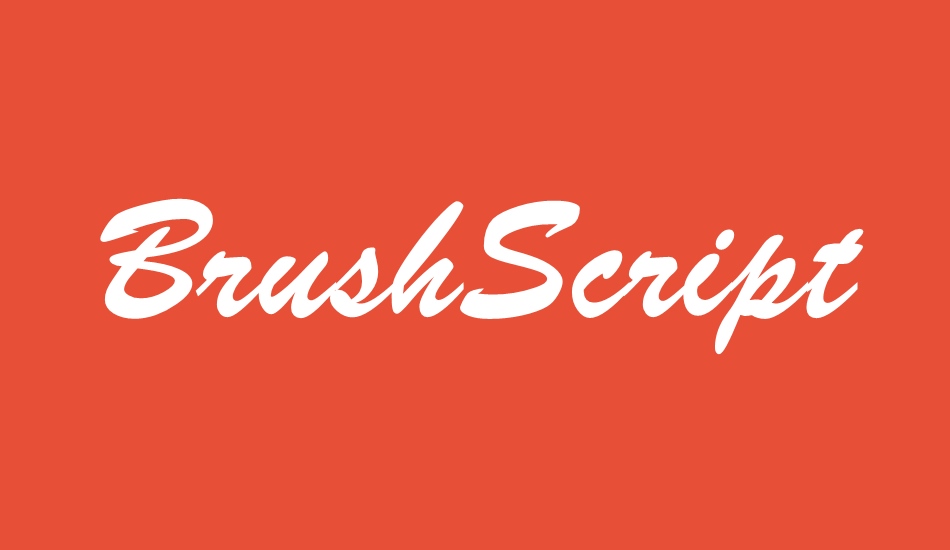
Handwritten script font brush font Royalty Free Vector Image Brush Script Bt Font The brush script bt font has a script typography and is great for elegant invitation art. A script typeface with 1 style, available from adobe fonts for sync and web. Uncategorized 36966 downloads download brush script d regular. Brushscript bt / regular font family. Explore brush script designed by robert e. Brush script bt font characters are listed below. Fontsplace. Brush Script Bt Font.
Download free BrushScript BT font, free BrushScriptBT.ttf Regular font Brush Script Bt Font Download brushscript bt regulartruetype font. A script typeface with 1 style, available from adobe fonts for sync and web. See how brushscript bt regular looks. The brush script bt font has a script typography and is great for elegant invitation art. Brush script bt free font download. Brushscript bt / regular font family. Uncategorized 36966 downloads download brush script d. Brush Script Bt Font.
Download free BrushScript BT Regular font BrushScriptBT.ttf Brush Script Bt Font Download brushscript bt regulartruetype font. A script typeface with 1 style, available from adobe fonts for sync and web. 'find my font' is an easy to use application for identifying fonts in digital images. Fontsplace is the best place to download brush script. Download 186,286 free fonts at ufonts.com Uncategorized 36966 downloads download brush script d regular. Experience the brushscript. Brush Script Bt Font.